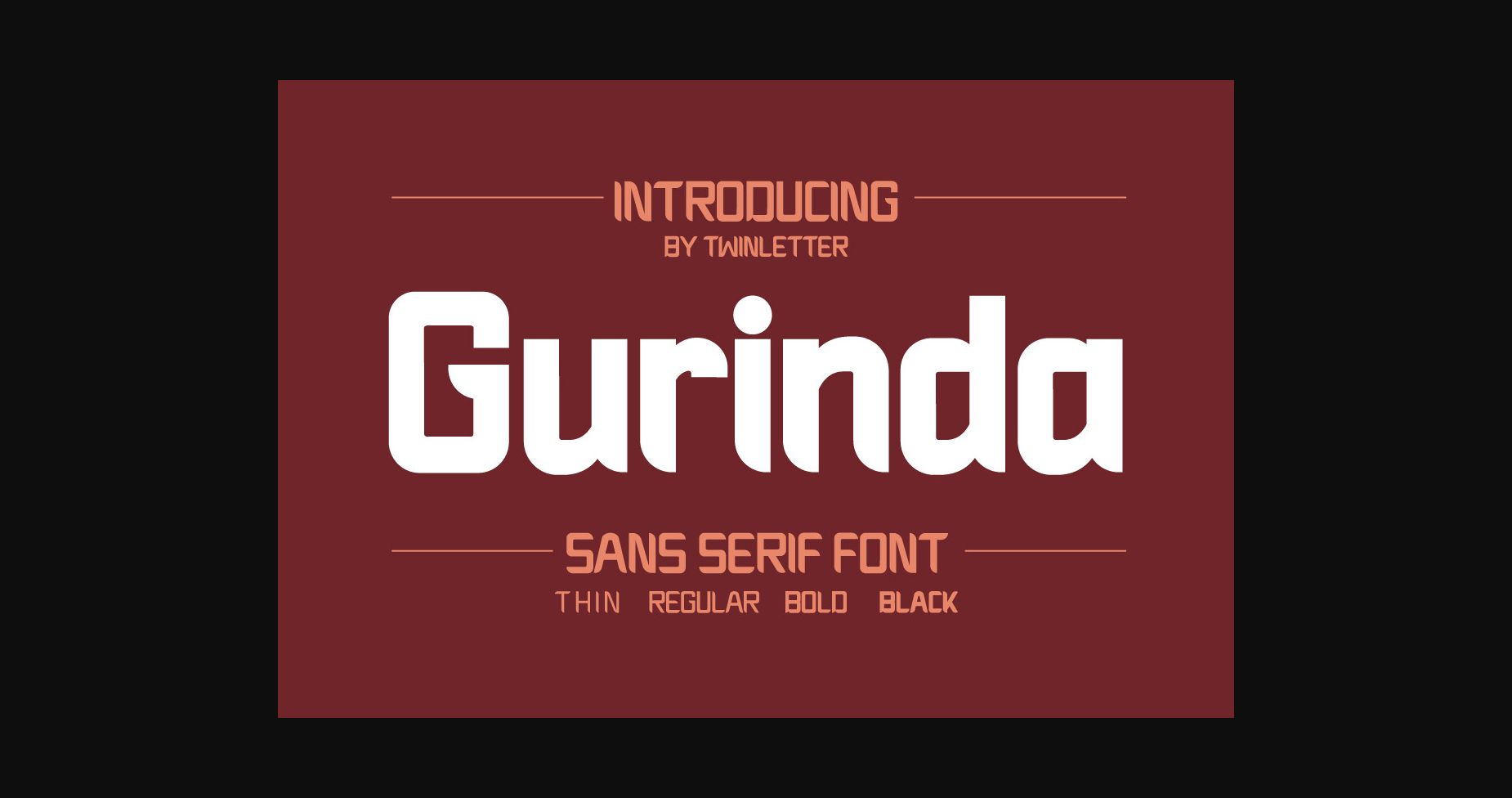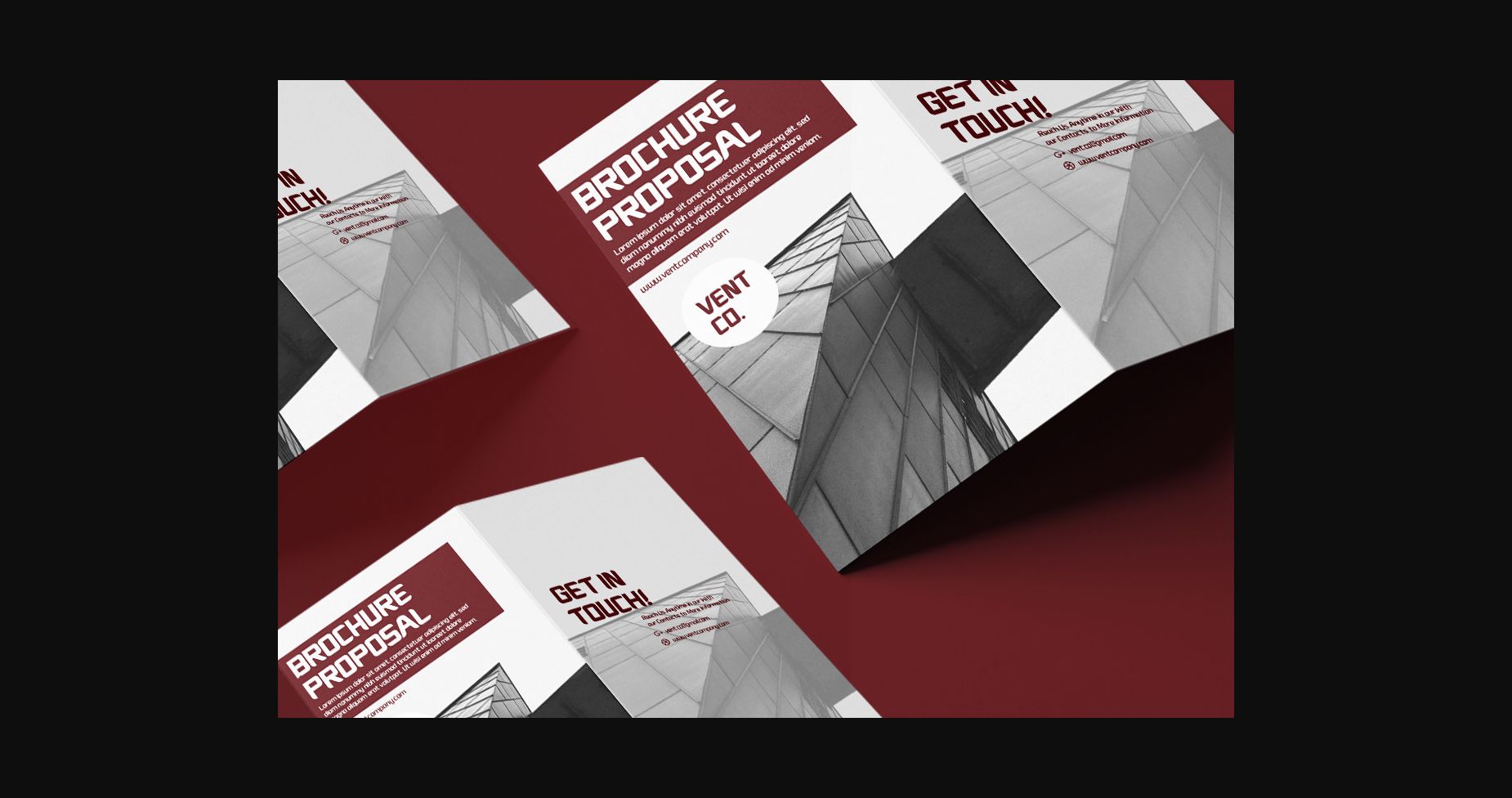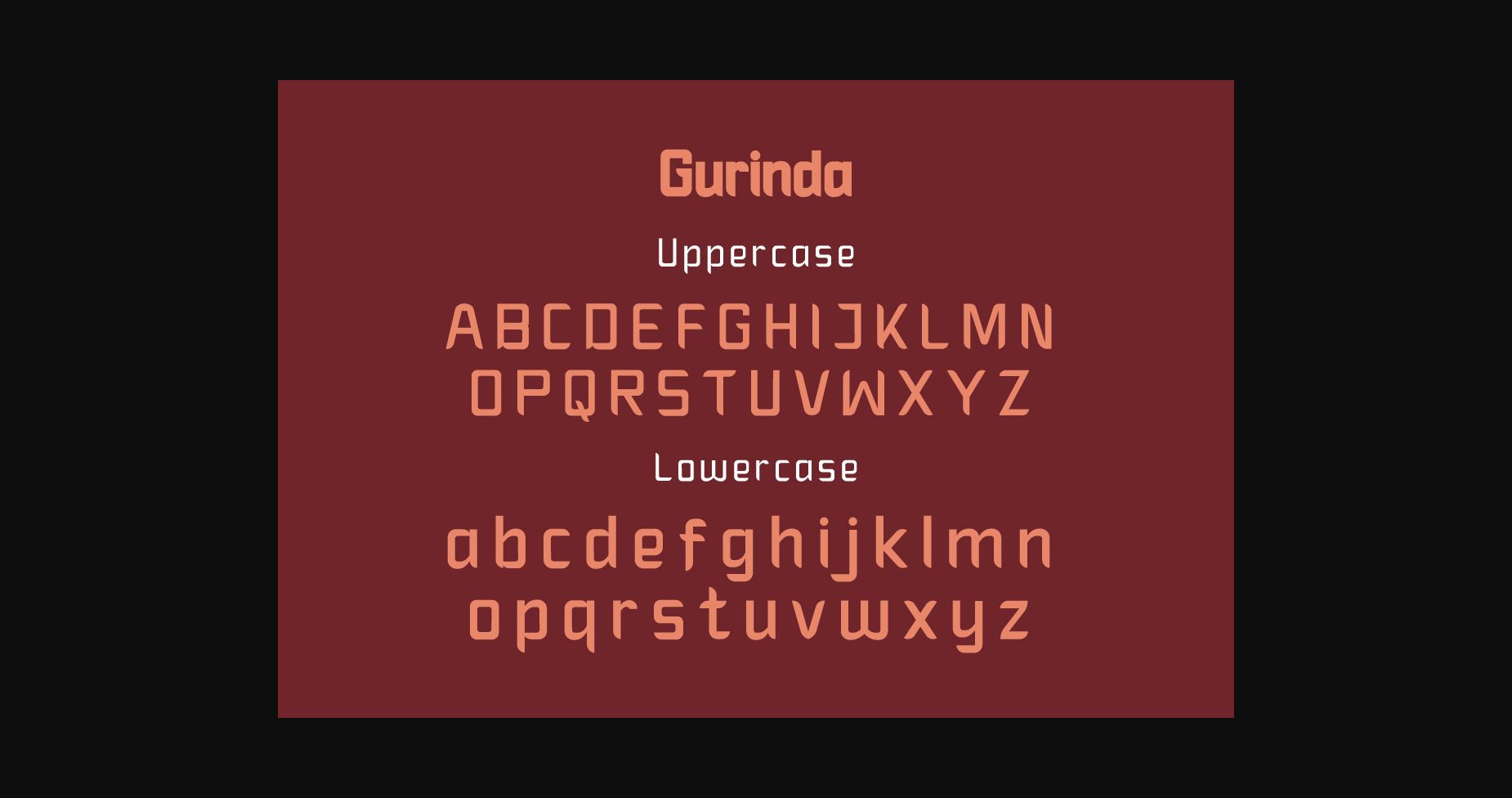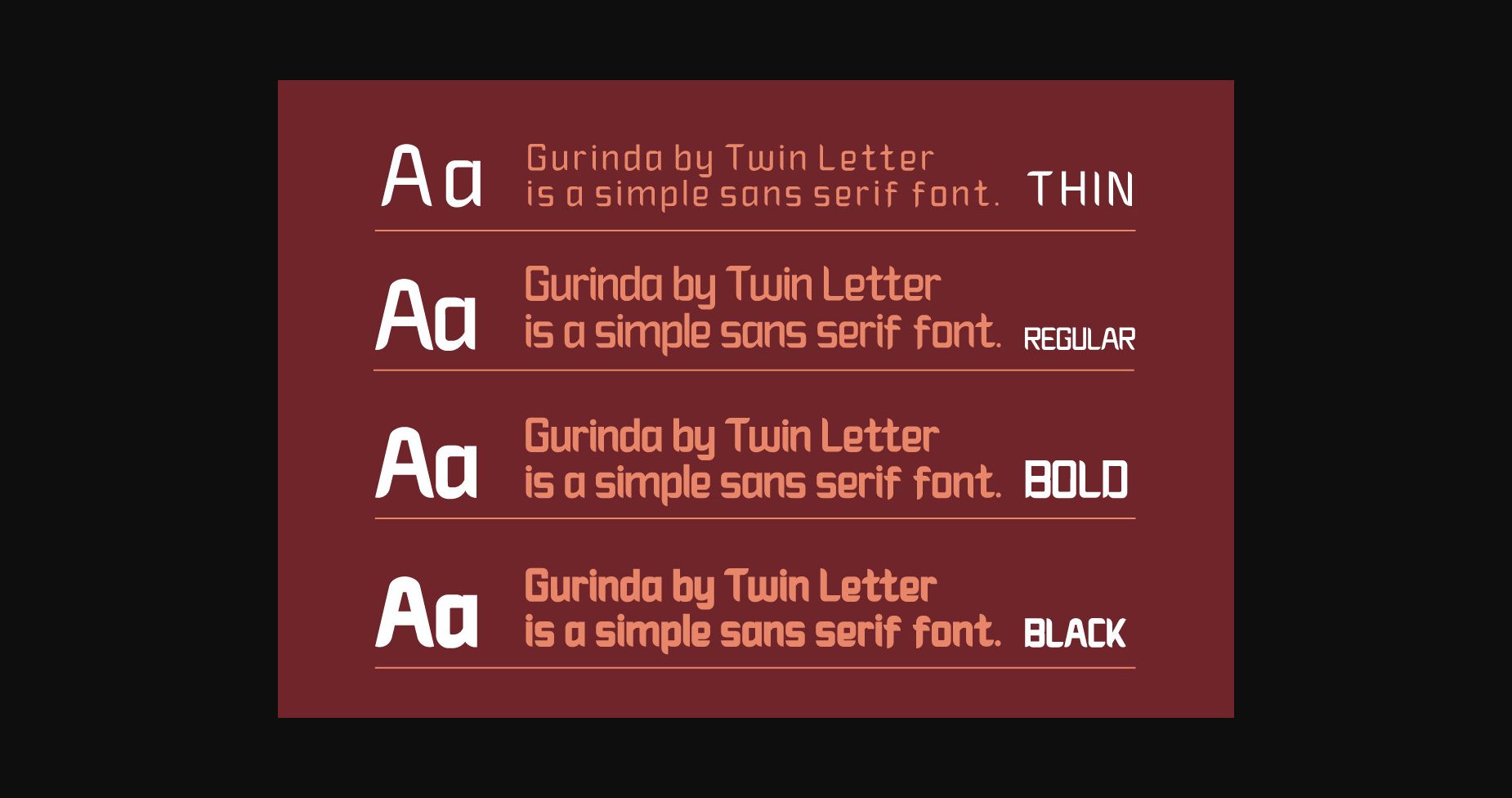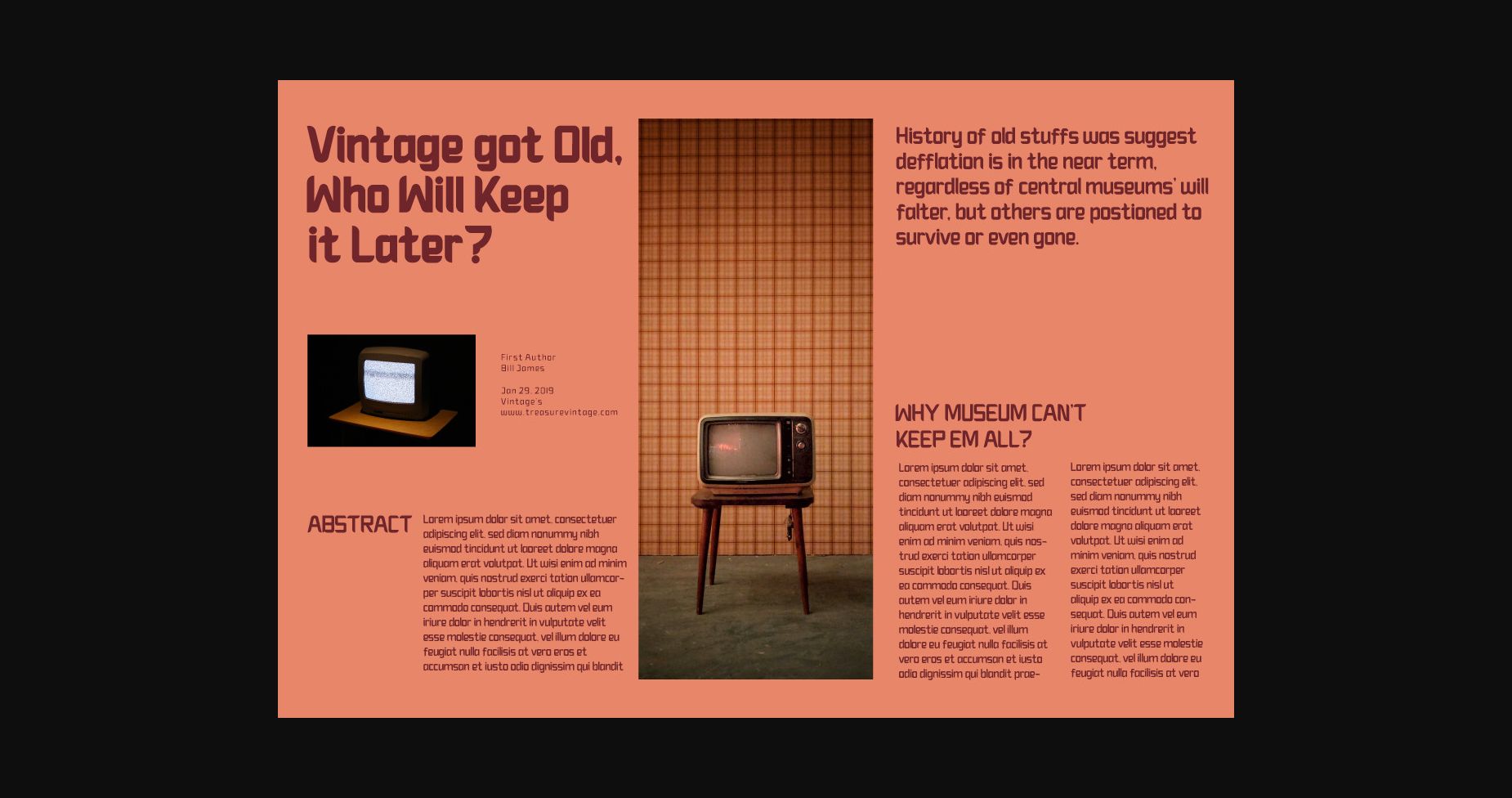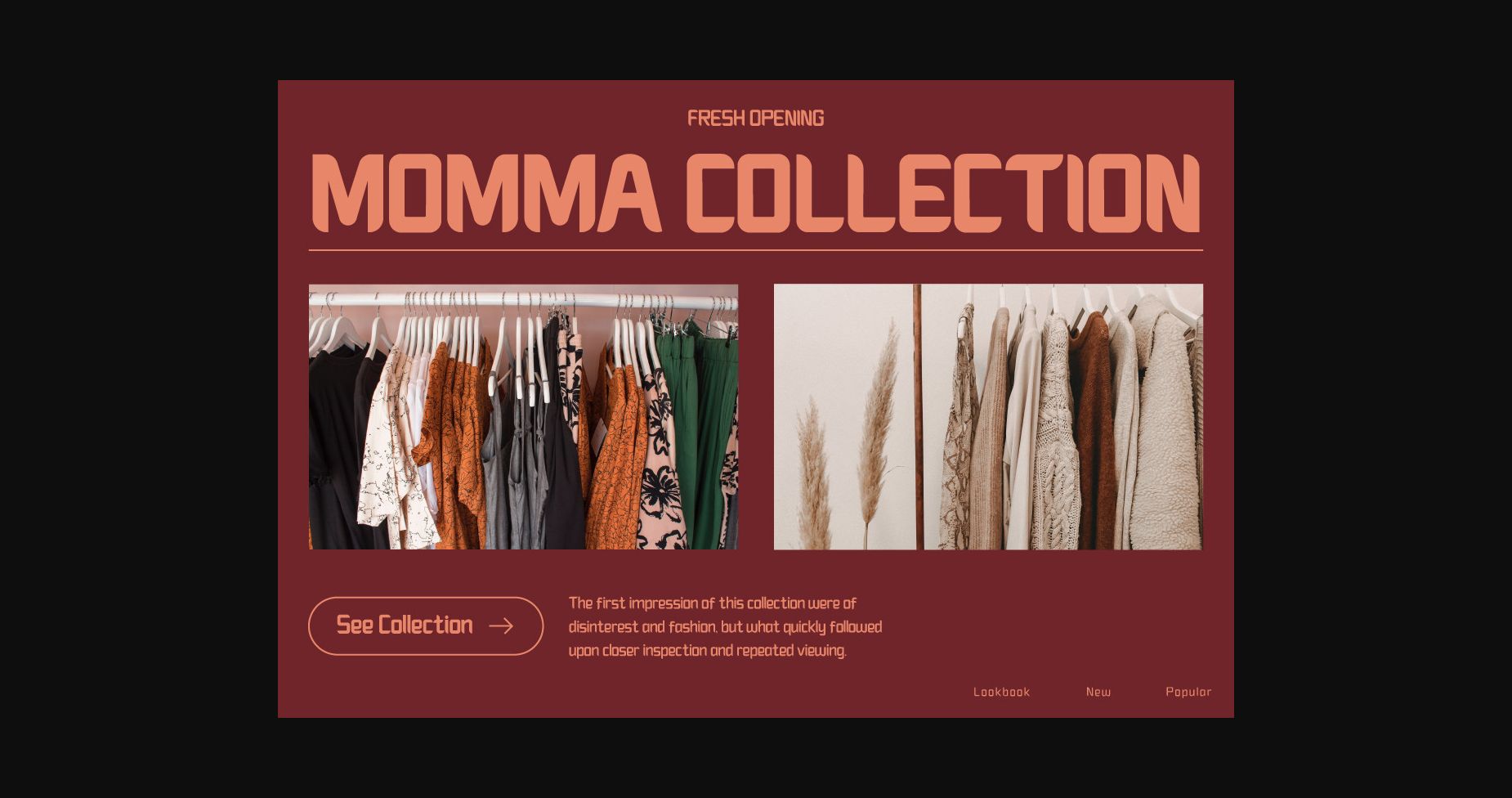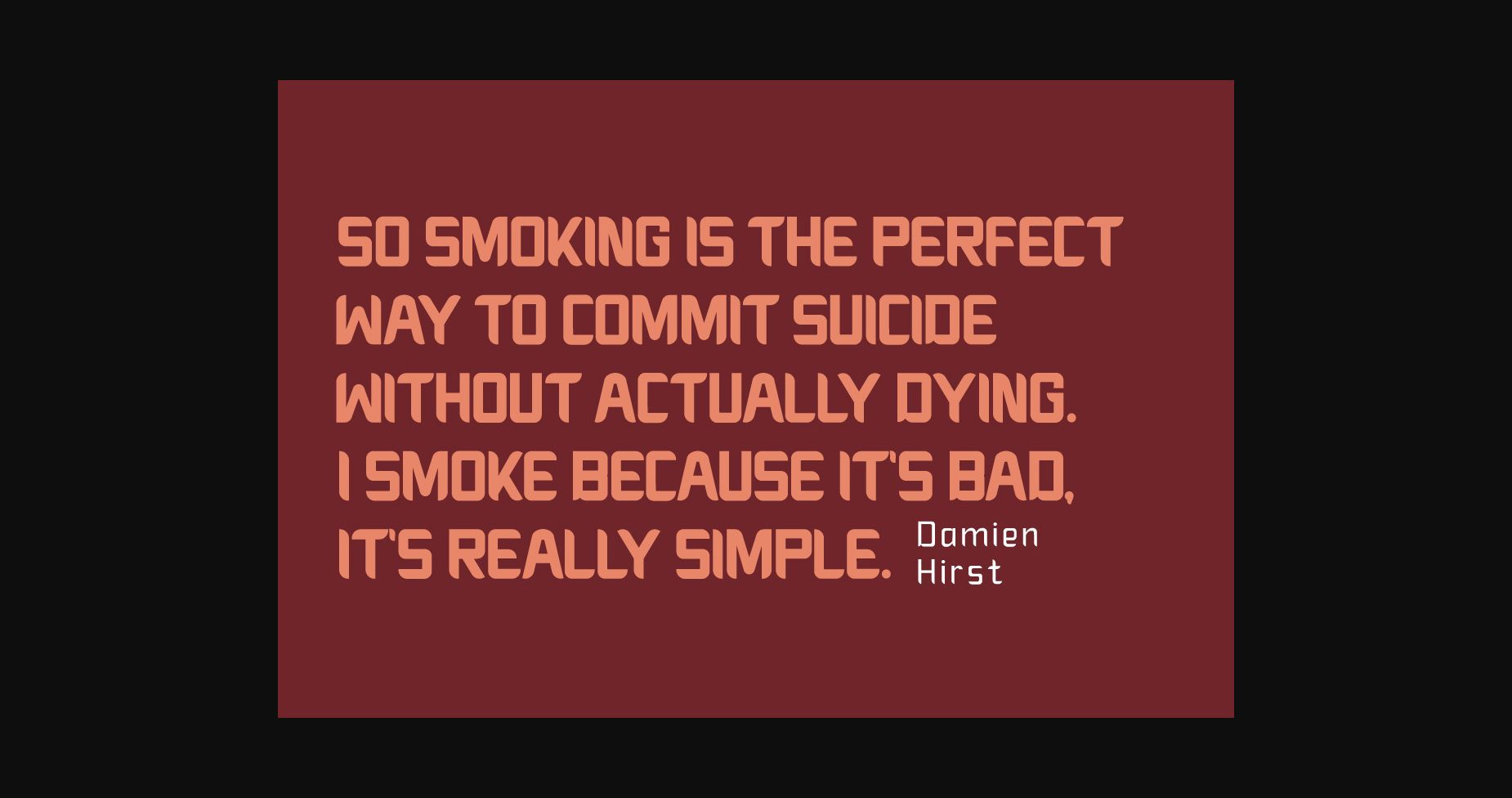
About Gurinda Font
Gurinda is a new and spectacular sans serif font designed to go well together with your unique and infinite creativity. Using this font as text is surely nice to the eye and easy to read, and using it as a title will make your project seem enchanting and astounding.
Don’t be hesitant; all of your projects are unique! Make them even more unique with this typeface.
Of course, your various design projects will be perfect and extraordinary if you use this font – because this font is equipped with different character styles for titles, subtitles, and body text.